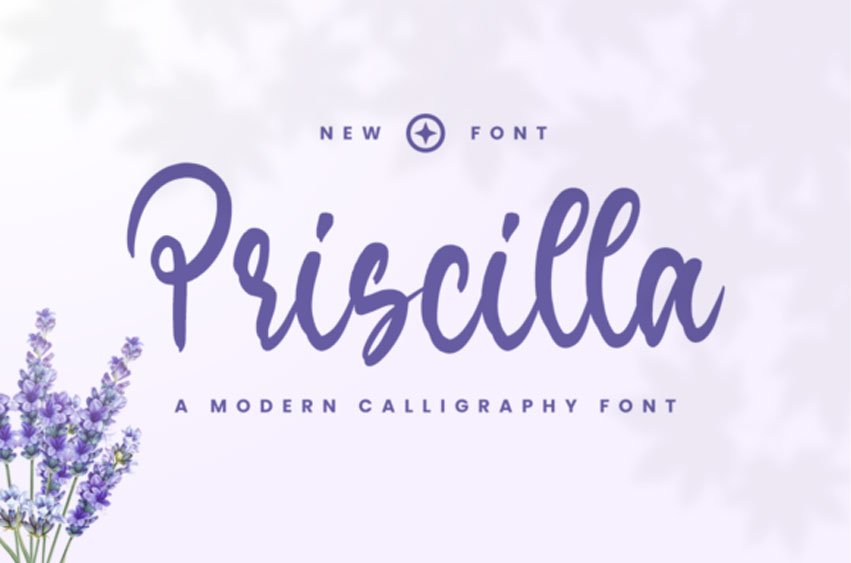
Priscilla Font is a chic, refined script font that emanates sophistication and elegance.
Its stylish alternates and ligatures make this font the perfect match for any project.